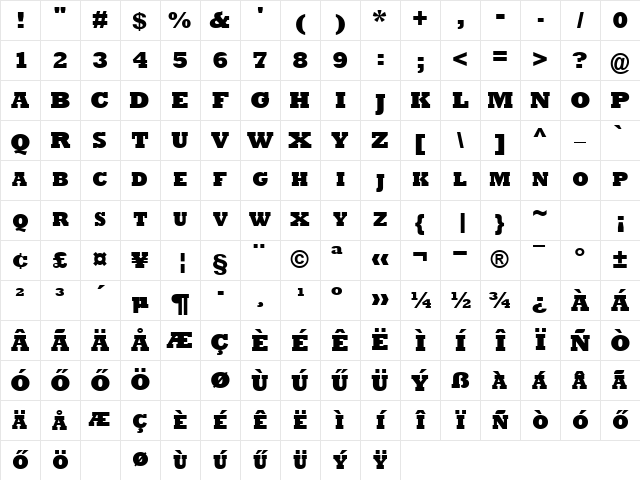
Hu_Shakewell ExpBlk Regular
Design Context for Hu_Shakewell ExpBlk
Hu_Shakewell ExpBlk is a composed and adaptable typeface that performs quietly and consistently across a wide range of design contexts.
Pro Tip: Use Hu_Shakewell ExpBlk in both headline and body roles to test its range before committing to a single application.